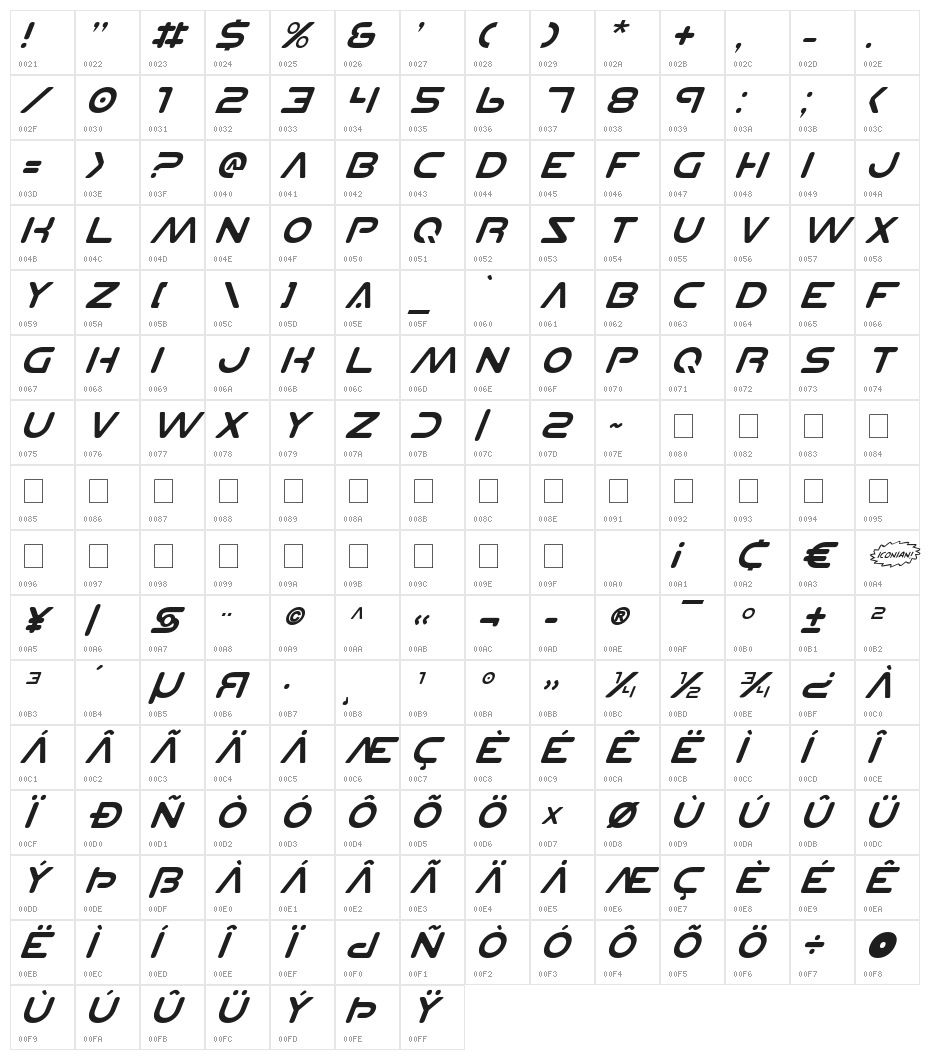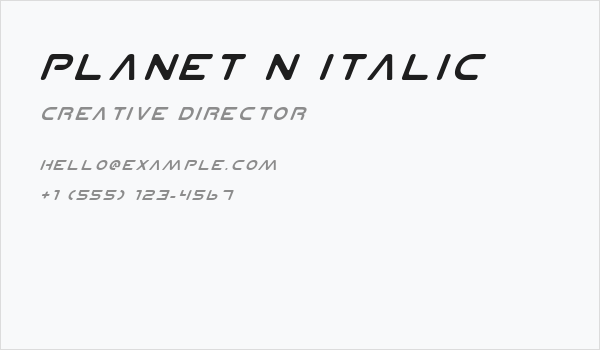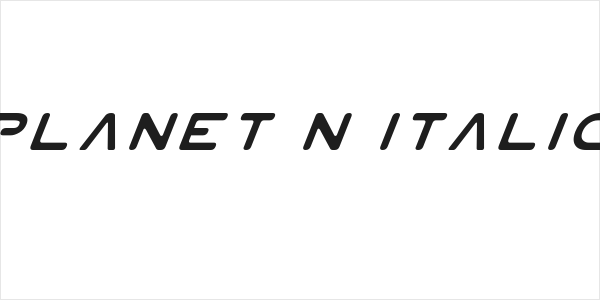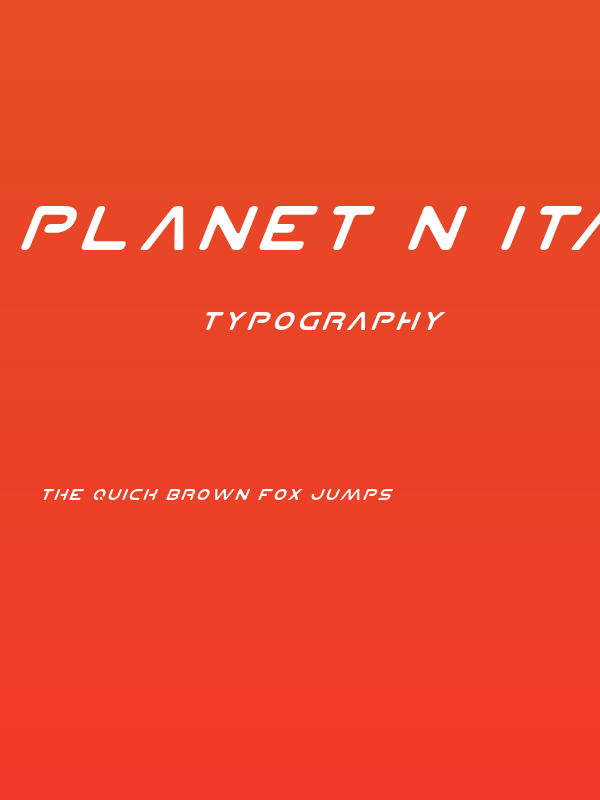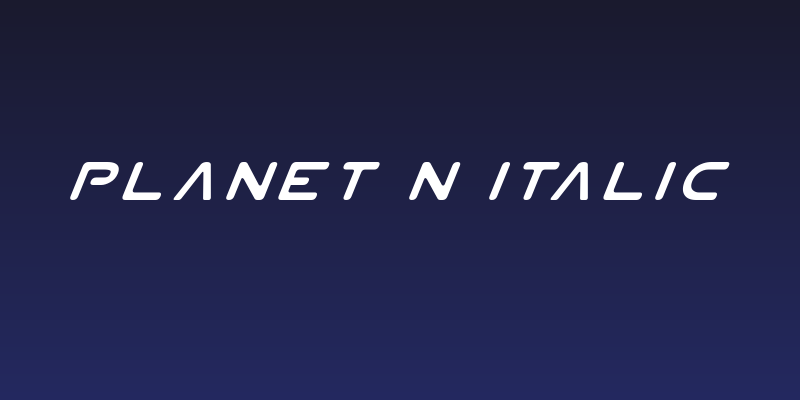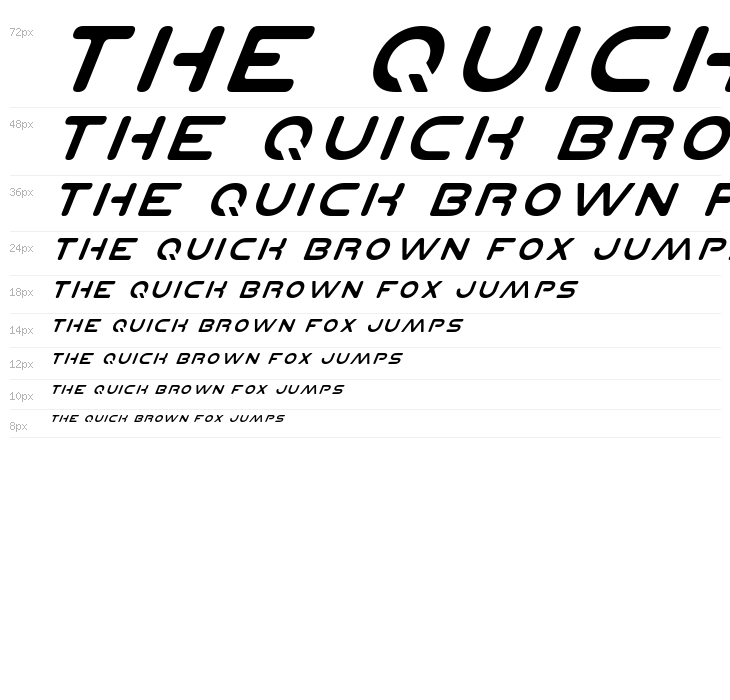
Planet N Italic Font
Planet N Italic Description
This font features a sleek, futuristic design with a distinct italic slant, giving it a dynamic and forward-moving appearance. The characters are crafted with smooth, continuous lines and rounded edges, creating a sense of fluidity and modernity. The uppercase and lowercase letters maintain a consistent style, while the numerals and special characters complement the overall aesthetic. The font's design is both minimalistic and expressive, making it suitable for a variety of creative applications.
| Use Case | Headlines, Logos, Digital Interfaces |
| Proposed Projects | Ideal for sci-fi themed projects, technology branding, modern advertising, and digital interfaces. |